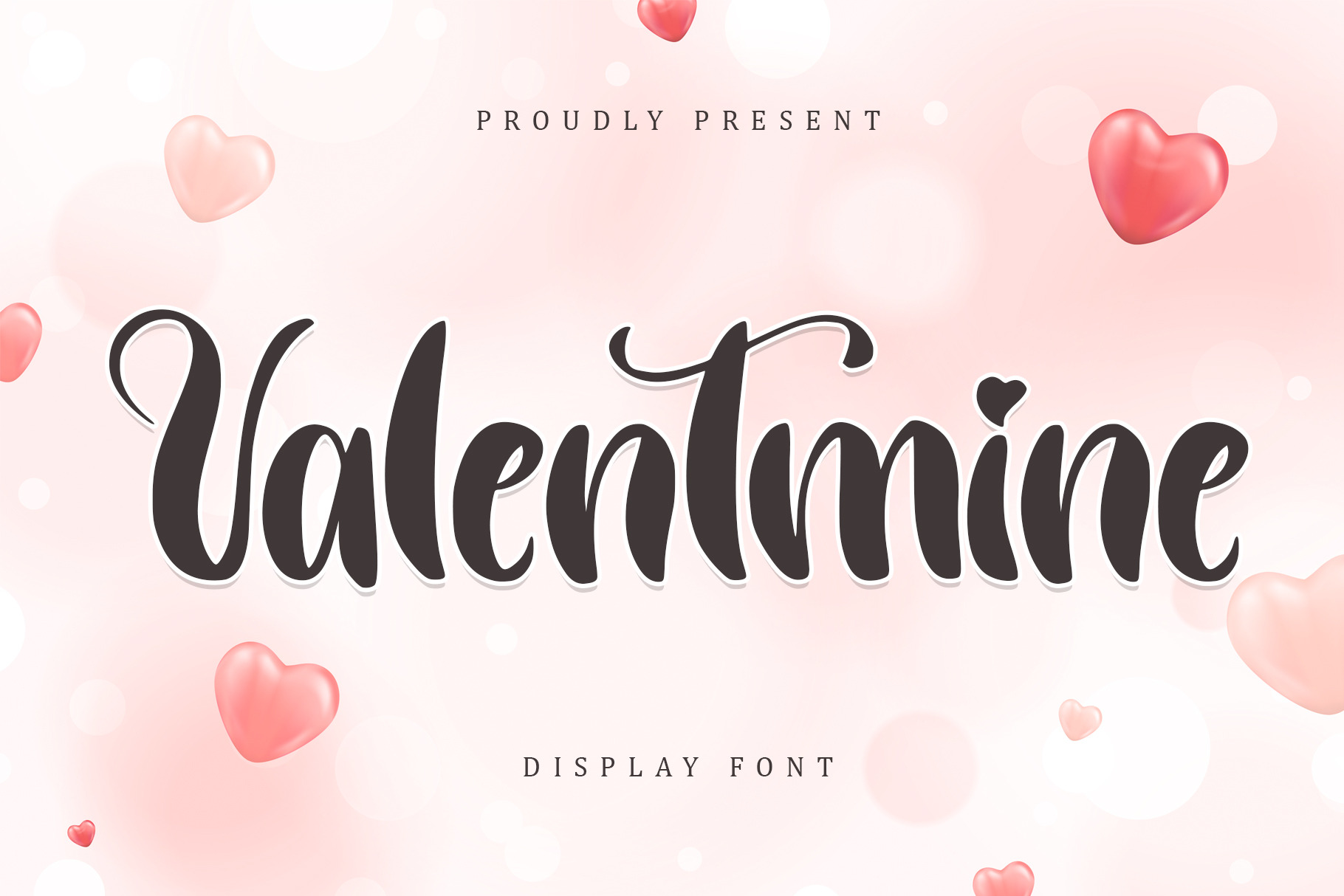
Valentmine | Display Font
Valentmine is the perfect font for contemporary romance. The script font effortlessly combines modern and romantic elements for a stunning result. With its delicate curves, gentle strokes, and elegant flourishes, this font is perfect for wedding invitations, love letters, or any project that needs a touch of romance. Keep in mind that the font is PUA encoded, meaning that you can access all delightful glyphs and swashes effortlessly.